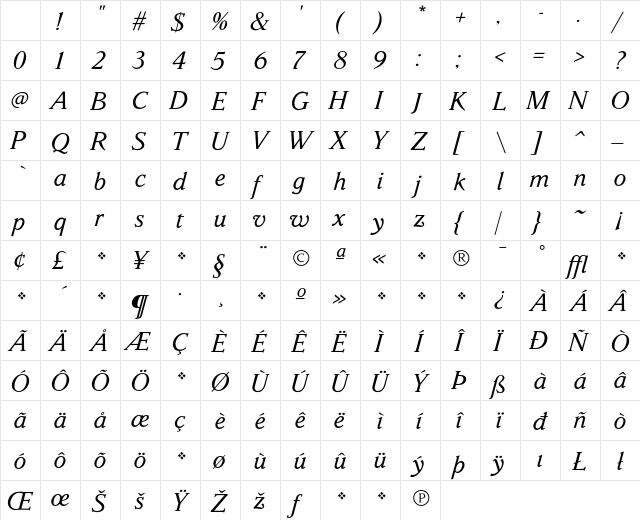
Parkinson is a composed and adaptable typeface that performs quietly and consistently across a wide range of design contexts. The slanted form adds forward momentum and visual energy.
Pro Tip: Use Parkinson for emphasis, pull quotes, and subheadings where its slanted energy can add rhythm to the layout.